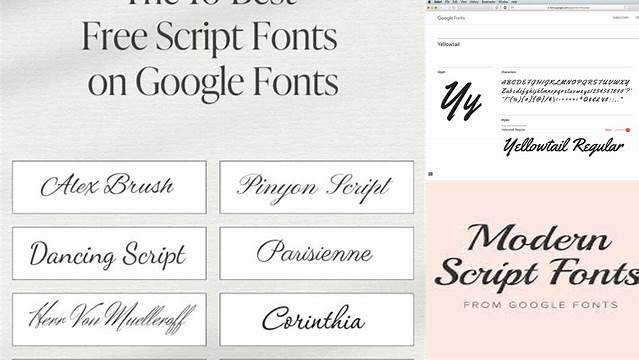
Top Free Google Script Fonts For Your Next Project
Choosing the right font can make all the difference in your design. If you're looking for elegant and readable script fonts, Google Fonts is an excellent resource. In this article, we'll dive into some of the best free Google Script fonts available, exploring their unique characteristics and ideal uses. So, let's get started, guys, and find the perfect font for your next project!
1. Introduction to Google Script Fonts
Google Fonts offers a vast library of free fonts, and within that collection, script fonts hold a special place. These fonts, which mimic handwriting styles, can add a touch of sophistication and personalization to your designs. Understanding the nuances of script fonts is crucial. Script fonts are ideal for creating a warm and inviting feel, making them perfect for invitations, logos, and headings. However, overusing script fonts can make your design look cluttered or difficult to read. When selecting a script font, readability should be your top priority. Look for fonts with clear letterforms and adequate spacing. The best free Google Script fonts not only look beautiful but also maintain legibility across various sizes and mediums.
2. Why Choose Free Google Script Fonts?
3. Factors to Consider When Selecting a Script Font
Choosing the right script font involves more than just picking the prettiest one. Several factors should influence your decision. Readability is paramount; a beautiful font is useless if your audience can't read it. Consider the font's legibility at different sizes and on various backgrounds. Another crucial factor is the font's personality. Does it convey the tone you're aiming for? A formal script font might be perfect for wedding invitations, while a playful one could be better suited for a children's book. Also, think about the font's versatility. Can it be used effectively in headings, body text, and other design elements? Finally, ensure the font complements your overall design aesthetic. The best free Google Script fonts will enhance your design, not distract from it. Keep these considerations in mind, guys, and you'll find the perfect fit!
4. The Importance of Readability in Script Fonts
Readability is the cornerstone of effective typography, especially when it comes to script fonts. Unlike standard fonts, which are designed for clarity, script fonts often prioritize style and aesthetics. This can sometimes lead to legibility issues. If your text isn't easy to read, your message will be lost. Therefore, it's crucial to select script fonts that strike a balance between beauty and clarity. Look for fonts with clear letterforms, adequate spacing, and minimal embellishments. Avoid overly ornate or decorative fonts, as these can be difficult to decipher. Also, consider the context in which the font will be used. A large heading might tolerate a more intricate script, but body text requires a simpler, more readable option. The best free Google Script fonts prioritize readability without sacrificing style. Remember, guys, your font should enhance your message, not obscure it!
5. Matching Script Fonts with Different Design Styles
Script fonts are versatile, but they're not a one-size-fits-all solution. Matching the right script font with your design style is essential for creating a cohesive and visually appealing look. For formal designs, such as wedding invitations or certificates, elegant and refined script fonts like Great Vibes or Allura work well. These fonts exude sophistication and grace. For more casual or playful designs, consider fonts like Pacifico or Lobster. These fonts have a friendly and approachable feel, making them ideal for logos or branding materials. When working with minimalist designs, a simple and clean script font like Roboto Slab or Open Sans can add a touch of personality without overwhelming the overall aesthetic. The best free Google Script fonts offer options for every design style. Just remember, guys, to choose a font that complements your vision and enhances your message.
6. Great Vibes: An Elegant Choice
Great Vibes is a classic script font known for its elegance and sophistication. Its flowing letterforms and graceful curves make it a popular choice for wedding invitations, greeting cards, and other formal designs. This font exudes a sense of luxury and refinement, adding a touch of class to any project. Great Vibes is also highly readable, making it suitable for both headings and shorter blocks of text. However, it's best to avoid using it for long paragraphs, as its ornate style can become tiring on the eyes. The best free Google Script fonts often include timeless options like Great Vibes. If you're looking to create a design that's both beautiful and elegant, this font is an excellent choice, guys!
7. Pacifico: A Playful and Friendly Option
If you're after a script font that radiates fun and friendliness, Pacifico is the perfect choice. Inspired by the surf culture of the 1950s, Pacifico has a casual, handwritten feel that's both approachable and stylish. This font is ideal for logos, branding materials, and website headers, particularly for businesses that want to convey a laid-back and welcoming vibe. Its rounded letterforms and smooth lines make it highly readable, even at smaller sizes. Pacifico is one of the best free Google Script fonts for projects that require a touch of personality. Whether you're designing a poster, a social media graphic, or a website, Pacifico will add a playful charm, guys.
8. Lobster: A Bold and Unique Script Font
Lobster is a distinctive script font that stands out for its bold and unique letterforms. With its condensed design and flowing connections, Lobster exudes a sense of retro cool. This font is particularly well-suited for headlines and titles, where its striking appearance can grab attention. However, its condensed nature means it's not the best choice for body text, as it can become difficult to read in large blocks. Lobster is among the best free Google Script fonts for designers who want to make a statement. If you're looking for a font that's both stylish and memorable, Lobster is a fantastic option, guys.
9. Dancing Script: A Lively and Informal Choice
Dancing Script is a playful and informal script font that brings a touch of liveliness to any design. Its bouncy baseline and varying letter heights create a sense of movement and energy. This font is perfect for projects that require a friendly and approachable feel, such as invitations, greeting cards, and social media graphics. Dancing Script is also a great choice for headings and titles, where its unique character can shine. While it's highly readable, it's best used sparingly, as its distinctive style can become overwhelming if overused. The best free Google Script fonts often include fonts like Dancing Script for their versatility and charm, guys. It's a fantastic choice for adding a personal touch to your projects!
10. Allura: A Refined and Elegant Script
Allura is a refined and elegant script font that exudes sophistication and grace. Its delicate letterforms and flowing connections make it a popular choice for wedding invitations, certificates, and other formal designs. This font has a timeless quality that adds a touch of class to any project. Allura is also highly readable, making it suitable for both headings and shorter blocks of text. However, like other ornate scripts, it's best to avoid using it for long paragraphs. Among the best free Google Script fonts, Allura stands out for its classic beauty. If you're aiming for a design that's both elegant and timeless, Allura is an excellent option, guys.
11. Satisfy: A Casual and Relaxed Script
Satisfy is a casual and relaxed script font that brings a sense of warmth and friendliness to your designs. Its handwritten style and flowing letterforms make it perfect for projects that need a personal touch. This font is ideal for invitations, greeting cards, and social media graphics, particularly those with a rustic or vintage theme. Satisfy is also highly readable, making it suitable for both headings and body text. Its versatility makes it one of the best free Google Script fonts for a wide range of projects. If you're looking for a font that's both stylish and approachable, Satisfy is a great choice, guys.
12. Kaushan Script: A Bold and Energetic Option
Kaushan Script is a bold and energetic script font that demands attention. Its dynamic letterforms and strong strokes make it perfect for headlines, titles, and logos. This font exudes a sense of confidence and style, adding a touch of flair to any design. While Kaushan Script is highly readable, its bold nature means it's best used sparingly, as it can become overwhelming if overused. It's one of the best free Google Script fonts for projects that need a strong visual impact. If you're looking to make a statement, Kaushan Script is an excellent choice, guys.
13. Cookie: A Sweet and Playful Script
Cookie is a sweet and playful script font that brings a touch of whimsy to any design. Its rounded letterforms and bouncy baseline create a sense of fun and friendliness. This font is perfect for children's books, birthday invitations, and other projects that require a cheerful vibe. Cookie is also highly readable, making it suitable for both headings and body text. Its versatility makes it one of the best free Google Script fonts for projects that need a touch of sweetness. If you're looking for a font that's both charming and approachable, Cookie is a delightful choice, guys.
14. Rancho: A Vintage and Rustic Script
Rancho is a vintage and rustic script font that exudes a sense of nostalgia and charm. Its weathered letterforms and hand-drawn style make it perfect for projects with a retro or vintage theme. This font is ideal for posters, logos, and branding materials that need a touch of old-world appeal. Rancho is also highly readable, making it suitable for both headings and shorter blocks of text. Among the best free Google Script fonts, Rancho stands out for its unique character. If you're aiming for a design that's both stylish and nostalgic, Rancho is a fantastic option, guys.
15. Permanent Marker: A Bold and Casual Handwritten Font
Permanent Marker is a bold and casual handwritten font that mimics the look of marker lettering. Its thick strokes and uneven lines create a sense of spontaneity and authenticity. This font is perfect for headings, titles, and posters, where its bold appearance can grab attention. Permanent Marker is also highly readable, making it suitable for shorter blocks of text. It's one of the best free Google Script fonts for projects that need a personal and informal touch. If you're looking for a font that's both stylish and relatable, Permanent Marker is a great choice, guys.
16. Shadows Into Light: A Gentle and Whimsical Script
Shadows Into Light is a gentle and whimsical script font that adds a touch of softness to any design. Its light strokes and flowing letterforms create a sense of elegance and grace. This font is perfect for invitations, greeting cards, and other projects that require a delicate touch. Shadows Into Light is also highly readable, making it suitable for both headings and body text. Its versatility makes it one of the best free Google Script fonts for a wide range of projects. If you're looking for a font that's both elegant and approachable, Shadows Into Light is a wonderful choice, guys.
17. Caveat: A Friendly and Legible Handwriting Style
Caveat is a friendly and legible handwriting-style font that offers a natural, approachable feel. Its clear letterforms and consistent strokes make it a great option for body text, notes, and informal designs. Caveat is designed to mimic actual handwriting, making it perfect for projects that need a personal touch without sacrificing readability. It’s one of the best free Google Script fonts because it strikes a balance between style and clarity. Whether you’re working on a blog post or a casual invitation, Caveat can add a unique, handwritten charm, guys.
18. Kalam: A Natural and Handwritten Feel
Kalam is another excellent choice for achieving a natural and handwritten feel in your designs. This font has a slightly more stylized appearance than Caveat, with a unique flow that adds character and personality. Kalam works well for headings, subheadings, and even shorter paragraphs. Its readability and distinctive style make it a standout option among the best free Google Script fonts. If you’re aiming for a design that feels both personal and polished, Kalam is a fantastic pick, guys.
19. Indie Flower: A Quirky and Informal Option
Indie Flower is a quirky and informal script font that’s perfect for projects needing a touch of playfulness. Its uneven strokes and unique letterforms give it a hand-drawn quality that's both charming and distinctive. Indie Flower works well for headings, posters, and anything that needs a touch of creative flair. While it's one of the best free Google Script fonts for informal projects, it may not be suitable for formal contexts due to its whimsical nature. If you’re looking to inject some fun into your designs, Indie Flower is the way to go, guys.
20. Covered By Your Grace: A Soft and Elegant Script
Covered By Your Grace is a soft and elegant script font that's perfect for projects aiming for a sophisticated and graceful look. Its delicate curves and flowing lines make it ideal for wedding invitations, greeting cards, and feminine designs. This font exudes a sense of timeless beauty and is considered one of the best free Google Script fonts for formal occasions. If you want your design to convey elegance and charm, Covered By Your Grace is an excellent option, guys.
21. Walter Turncoat: A Unique and Playful Script
Walter Turncoat is a unique and playful script font that stands out with its quirky letterforms and whimsical style. This font is perfect for projects needing a touch of fun and creativity. It’s particularly effective for children’s books, posters, and informal invitations. While it might not suit formal settings, Walter Turncoat is definitely one of the best free Google Script fonts for adding a unique twist to your designs. If you’re aiming for something different and eye-catching, this font is a great choice, guys.
22. Ruthie: A Refined and Calligraphic Script
Ruthie is a refined and calligraphic script font that exudes elegance and sophistication. Its flowing letterforms and intricate details make it perfect for formal invitations, certificates, and other upscale designs. Ruthie is one of the best free Google Script fonts for creating a sense of luxury and timelessness. If your project requires a touch of classic beauty and finesse, Ruthie is an excellent selection, guys.
23. Berkshire Swash: A Decorative and Stylish Script
Berkshire Swash is a decorative and stylish script font that adds flair and personality to any design. Its distinctive swashes and elegant curves make it perfect for headings, logos, and branding materials. This font stands out among the best free Google Script fonts for its ability to capture attention while maintaining readability. If you’re looking for a font that’s both eye-catching and refined, Berkshire Swash is a top contender, guys.
24. Oleo Script: A Casual and Readable Script
Oleo Script is a casual and readable script font that’s perfect for a variety of applications. Its balanced letterforms and clear strokes make it suitable for both headings and shorter paragraphs. This font strikes a great balance between style and readability, making it one of the best free Google Script fonts for everyday use. Whether you’re designing a website or creating marketing materials, Oleo Script offers versatility and charm, guys.
25. Bad Script: A Grungy and Hand-Drawn Style
Bad Script offers a grungy and hand-drawn style, giving your designs a raw and authentic feel. Its irregular letterforms and imperfect strokes make it ideal for projects needing a touch of edginess or a DIY aesthetic. While it may not be suitable for formal contexts, Bad Script is one of the best free Google Script fonts for adding character to posters, flyers, and casual branding materials. If you're going for a unique and unconventional look, Bad Script is a fantastic choice, guys.
26. Mountains of Christmas: A Festive and Decorative Script
Mountains of Christmas is a festive and decorative script font that’s perfect for holiday-themed projects. Its whimsical letterforms and cheerful style make it ideal for greeting cards, invitations, and other seasonal designs. While it’s specifically designed for Christmas, its charm can extend to other celebratory occasions. Among the best free Google Script fonts for festive designs, Mountains of Christmas stands out for its playful and joyful vibe, guys.
27. Rock Salt: A Bold and Informal Handwriting Font
Rock Salt is a bold and informal handwriting font that mimics the look of marker lettering. Its thick strokes and casual appearance make it perfect for headings, titles, and posters needing a personal touch. This font is highly readable and is one of the best free Google Script fonts for projects aiming for a handwritten feel without sacrificing clarity. If you're looking for a font that’s both bold and approachable, Rock Salt is a great pick, guys.
28. Permanent Marker vs Rock Salt: A Comparison
When choosing between Permanent Marker and Rock Salt, consider the specific needs of your project. Both fonts offer a bold, handwritten feel, but Permanent Marker has a slightly more polished look, while Rock Salt has a rougher, more casual appearance. Permanent Marker is ideal for projects needing a clean, marker-like aesthetic, while Rock Salt is better suited for designs aiming for a more rugged, informal vibe. Both are among the best free Google Script fonts in this style, guys. Weigh the nuances to pick the perfect fit!
29. How to Install and Use Google Script Fonts
Installing and using Google Script fonts is a straightforward process. First, navigate to the Google Fonts website and select the font you want to use. Click on the “+” icon to add it to your collection. Then, click the “View Selected Fonts” button to access the embed code. You can either embed the font into your website using the provided HTML and CSS, or download the font files to use in your design software. Most design programs allow you to install fonts by simply double-clicking the font file. By following these steps, you can easily add the best free Google Script fonts to your design toolkit, guys.
30. Tips for Combining Script Fonts with Other Font Styles
Combining script fonts with other font styles can elevate your design, but it’s essential to do it thoughtfully. Pair script fonts with simple, sans-serif fonts for a balanced and readable look. For example, you might use a script font for headings and a sans-serif font like Open Sans or Roboto for body text. Avoid pairing multiple script fonts together, as this can create a cluttered and confusing design. The key is to create contrast while maintaining harmony. The best free Google Script fonts can be incredibly versatile when paired strategically with other fonts, guys. Experiment to discover the combinations that best suit your project's aesthetic!